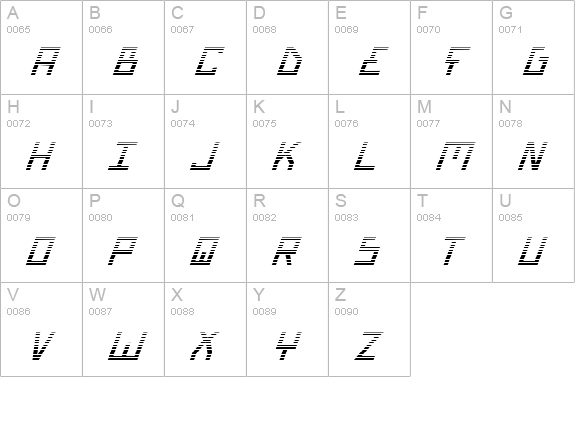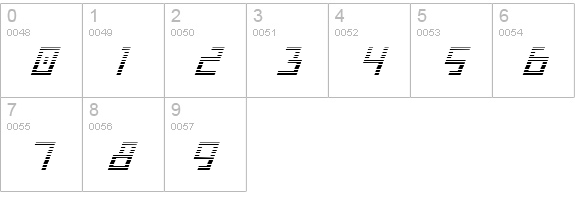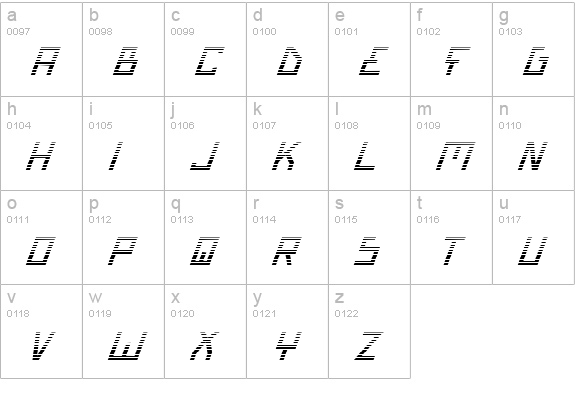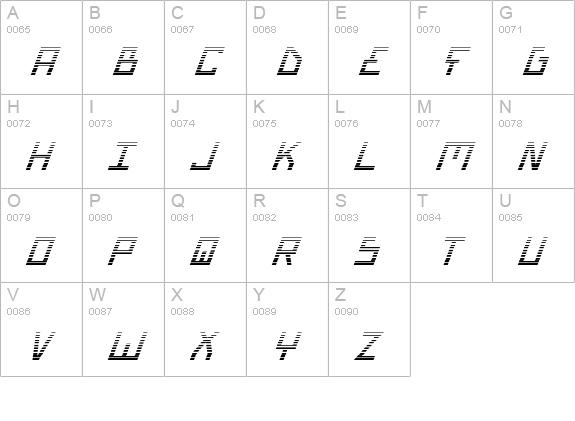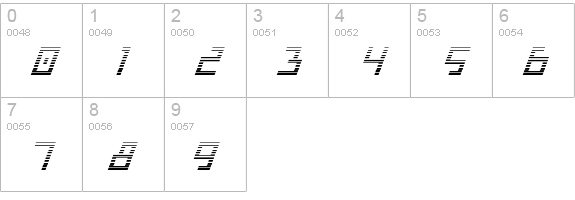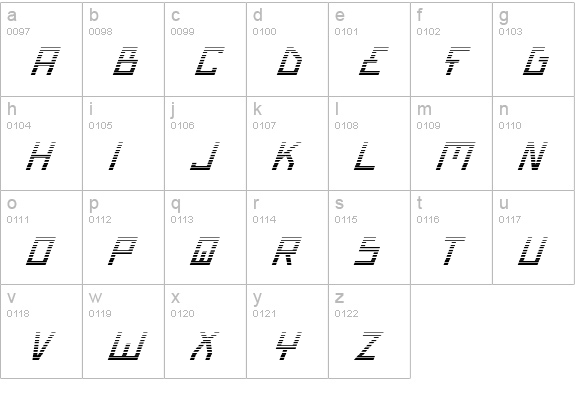
Bionic Type Grad Italic Font Details
Bionic Type Grad Italic is a distinctive, italic variant in the Bionic typeface family \xE2\x80\x94 well suited to design and typography projects.
The Bionic Type Grad Italic font is a striking and modern typeface that combines sleek lines with a futuristic aesthetic. Its italicized design adds a touch of elegance and sophistication to any project, making it perfect for branding, headlines, and creative designs. The bionic-inspired elements in this typeface give it a unique and cutting-edge look that is sure to capture attention. The Bionic Type Grad Italic font is not only visually stunning but also versatile, making it suitable for a wide range of design projects. Whether you're working on a tech-related website, a fashion magazine, or a high-tech product packaging, this font is sure to make a statement. Best of all, the Bionic Type Grad Italic font is available for free download at FontsMarket.com. So go ahead and add this exceptional font to your collection today and take your designs to the next level!